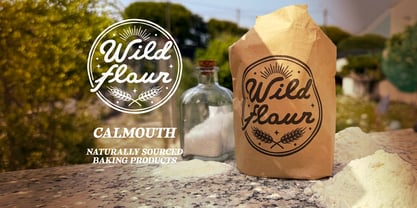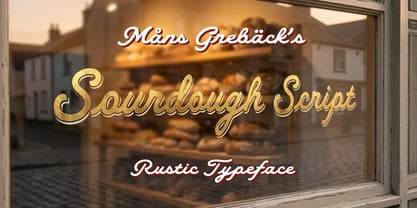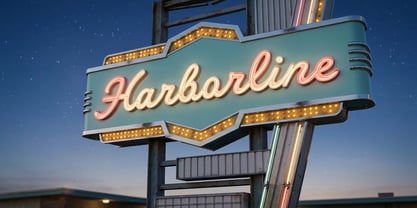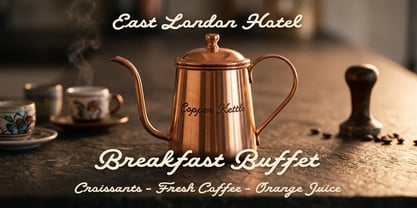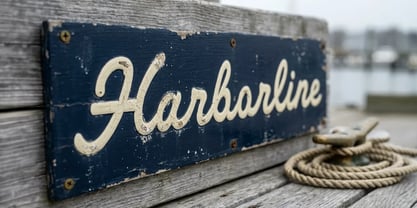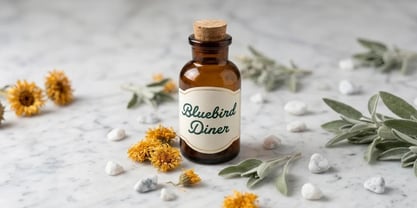
Sourdough Script
by Mans Greback
The Sourdough Script Font Family was designed by Måns Grebäck and published by Mans Greback. Sourdough Script contains 4 styles and family package options. More about this family
Sourdough Script is a rustic script font with a confident presence.
The strokes are even and connected, written in a solid brush hand with a gentle rounding along its ends and softly looping ascenders.
Imagine it stamped in soft black ink across a kraft-paper bakery bag, sitting just above a row of cooling loaves.
The font is built with advanced functionality and guaranteed top-notch quality, containing stylistic and contextual alternates, ligatures and more automatic and manual features; all to give you full control and customizability.
It has extensive lingual support, covering all Latin-based languages, from North Europa to South Africa, from America to South-East Asia. It contains all characters and symbols you'll ever need, including all punctuation and numbers.